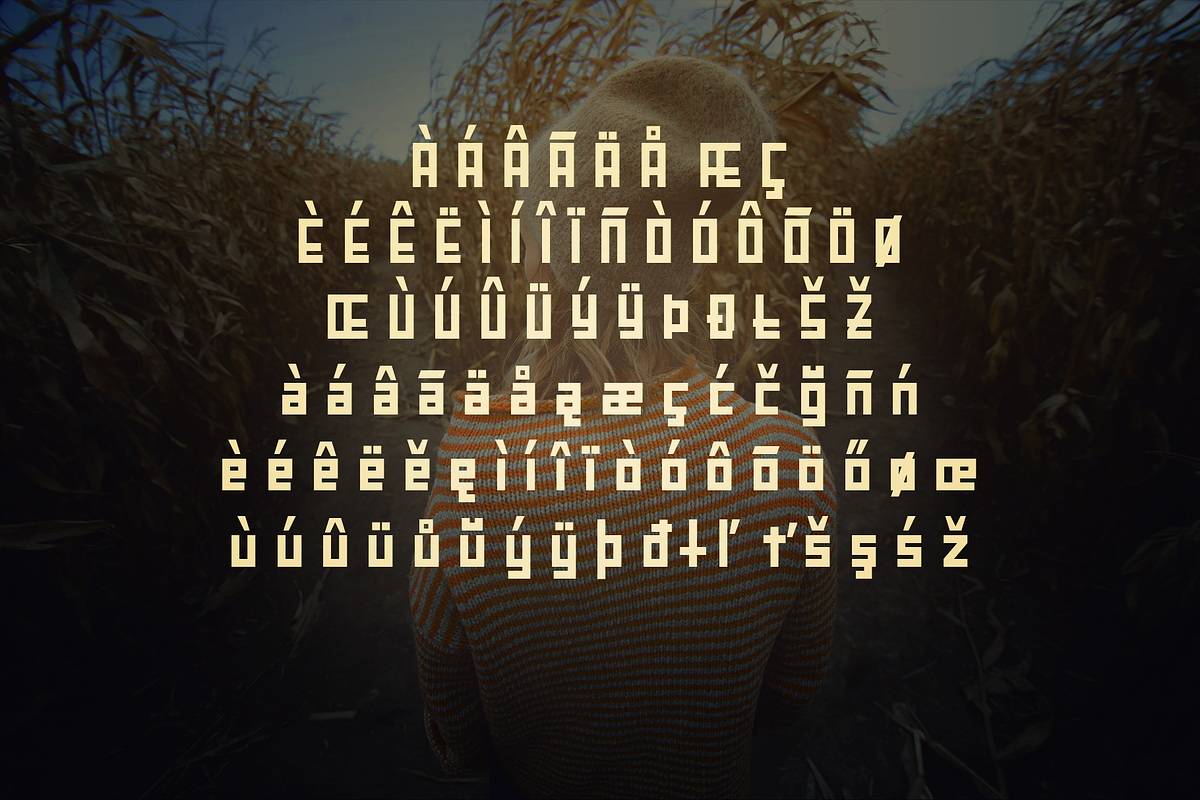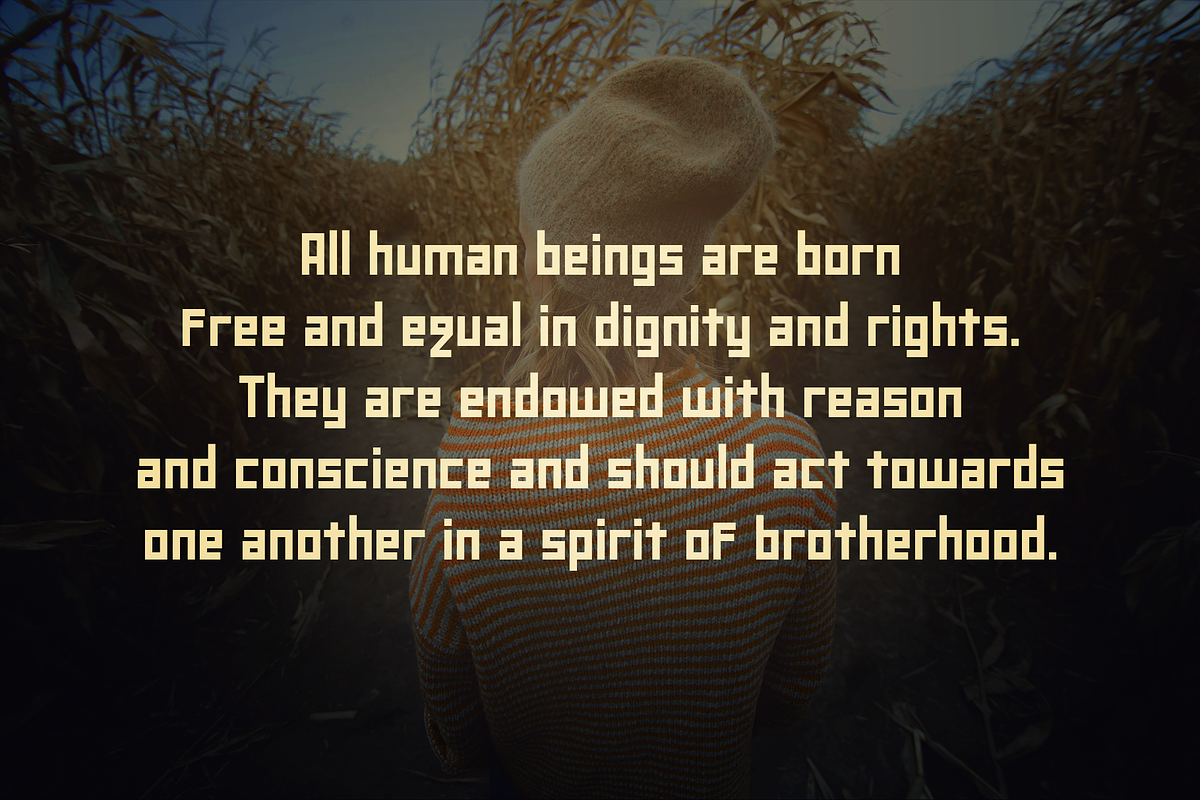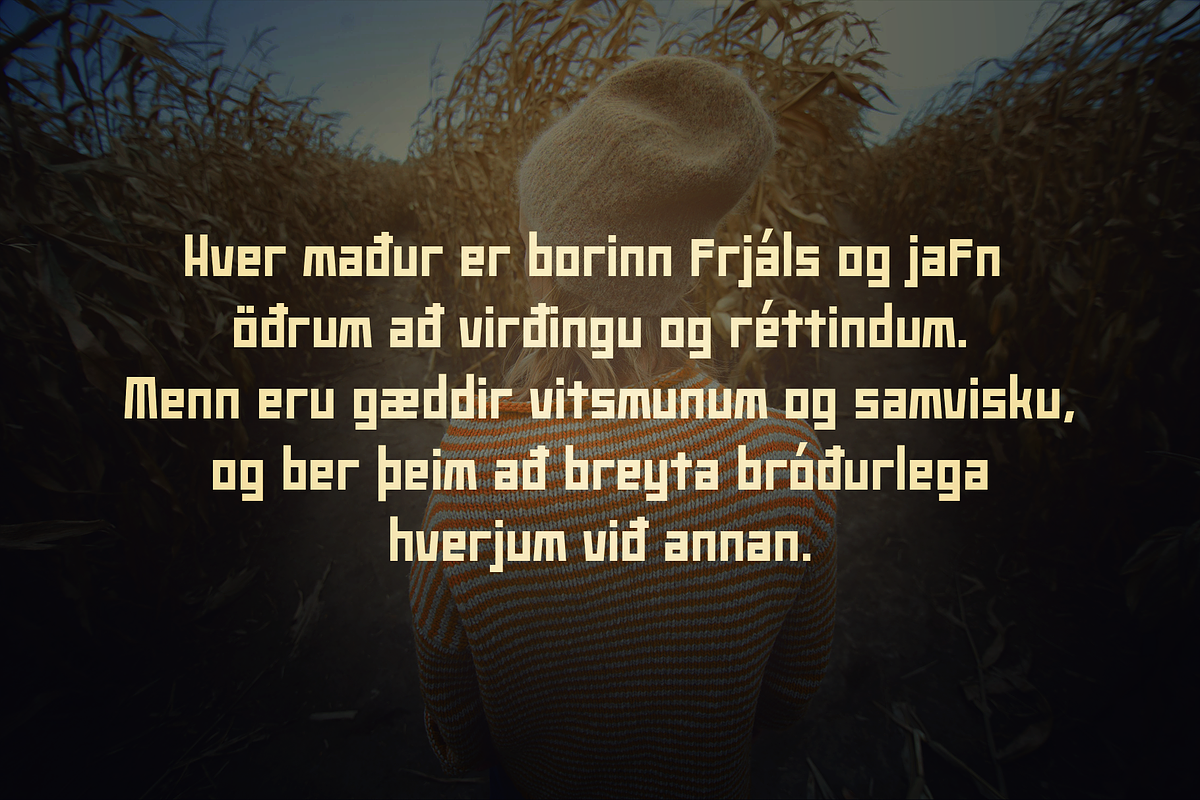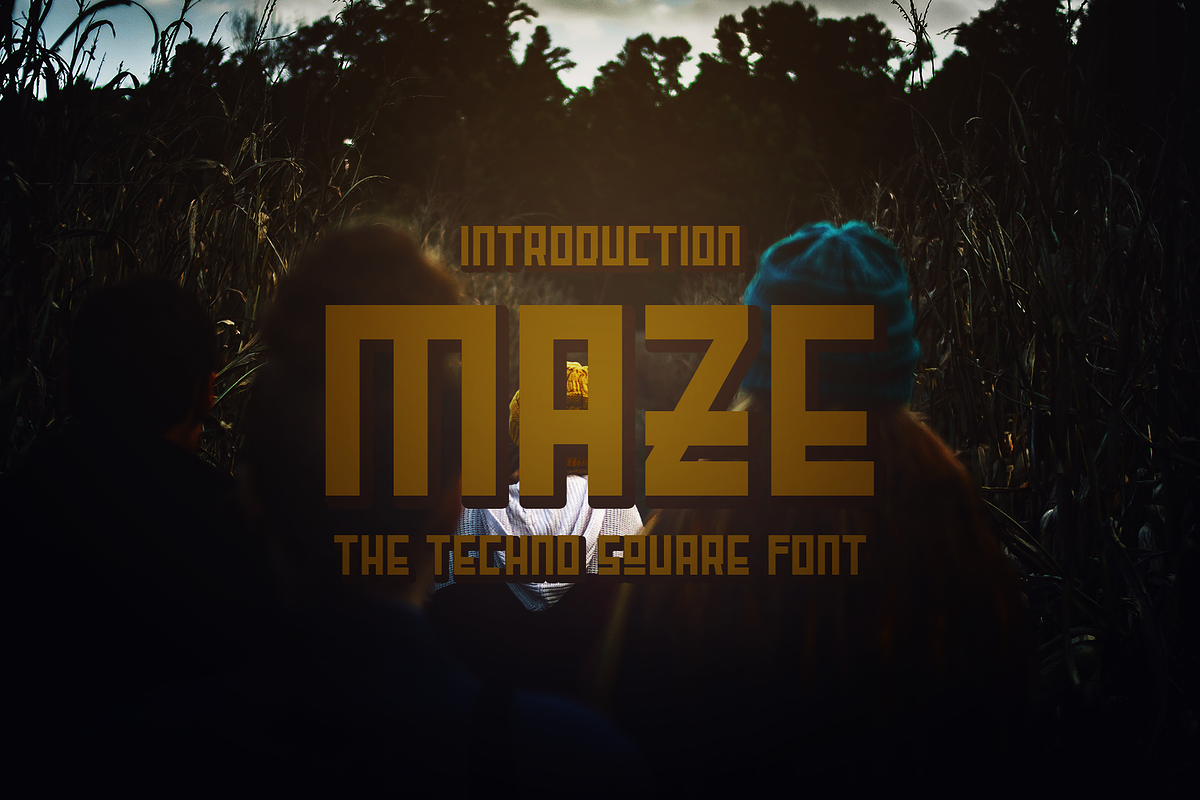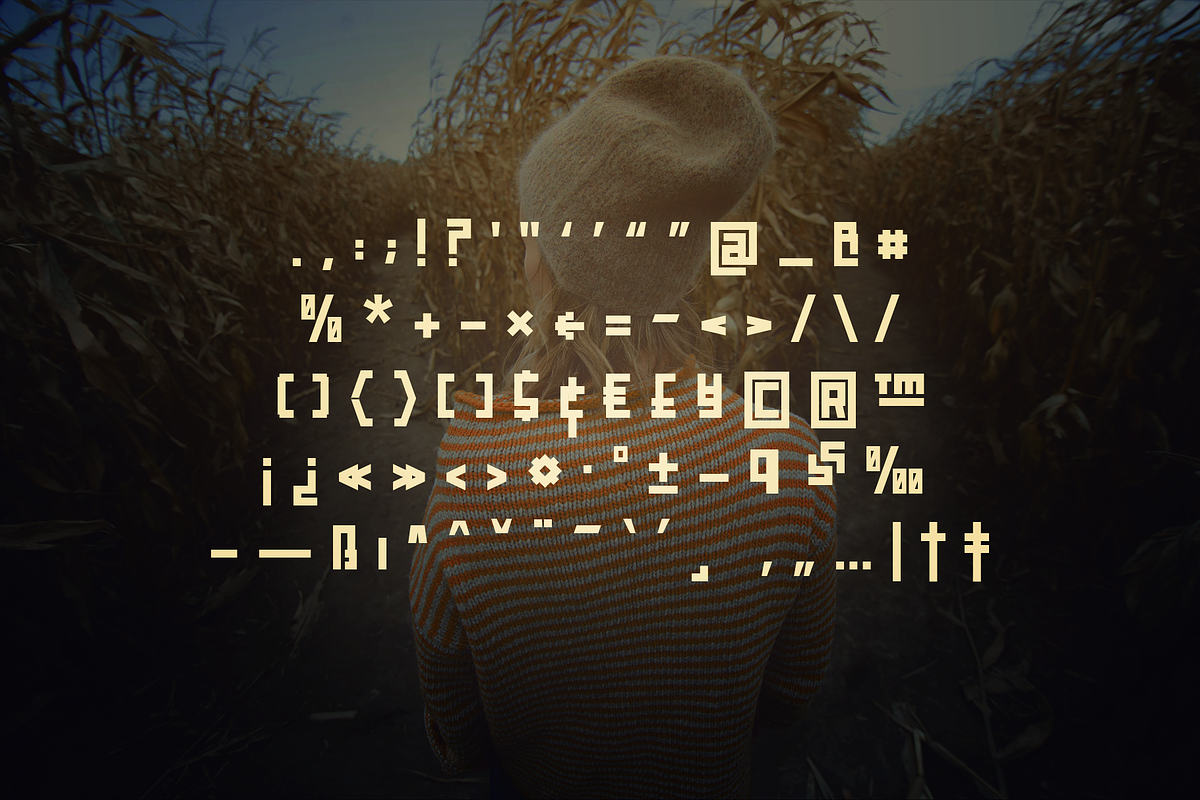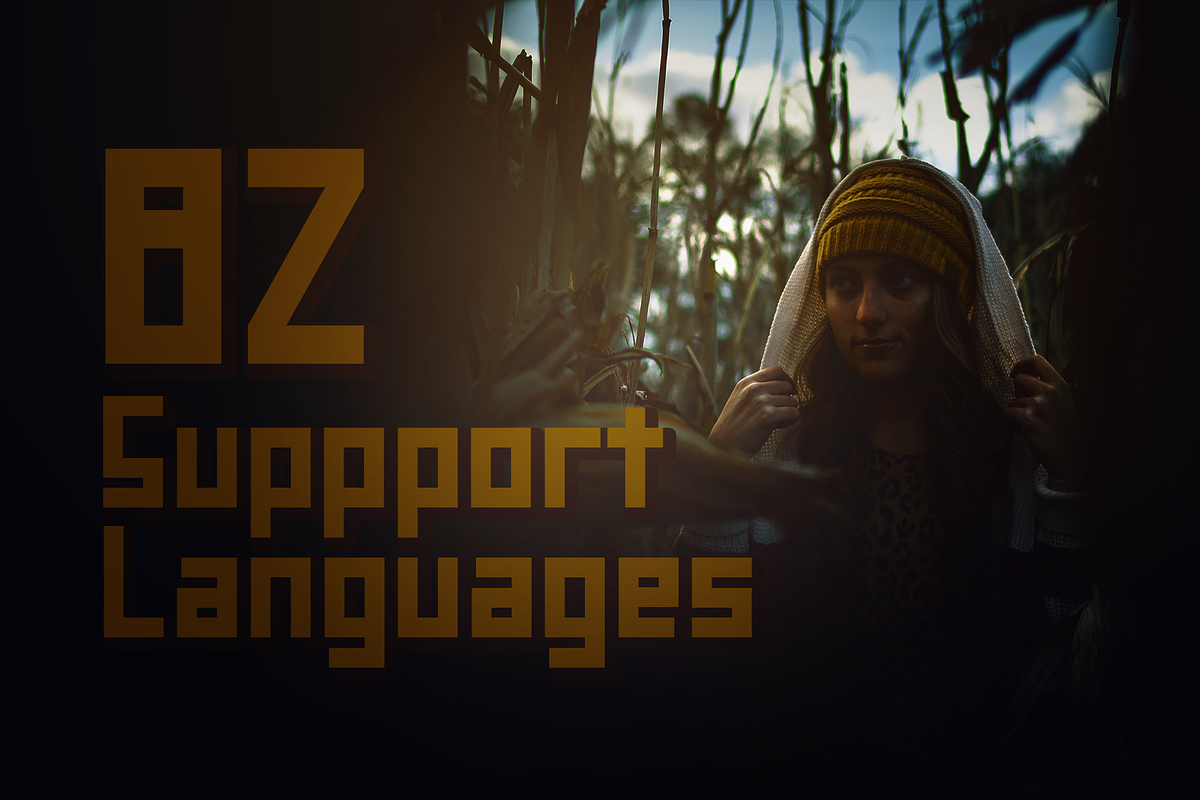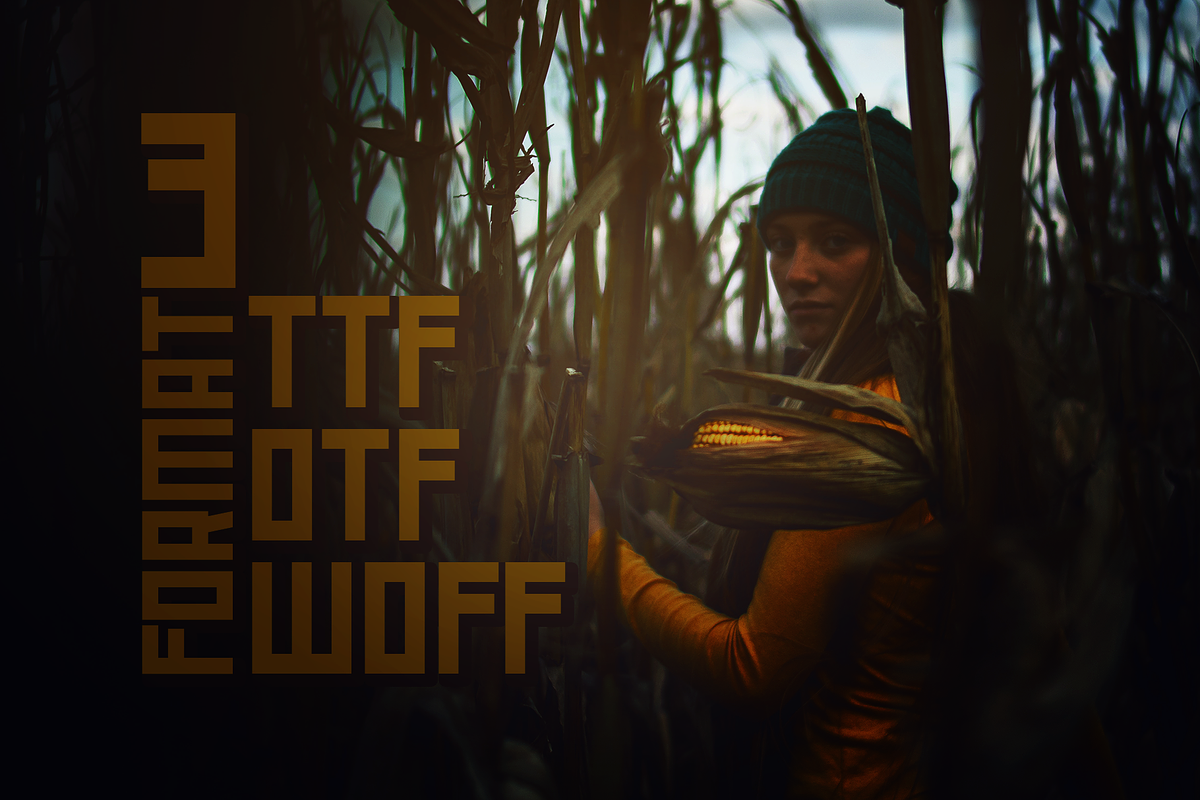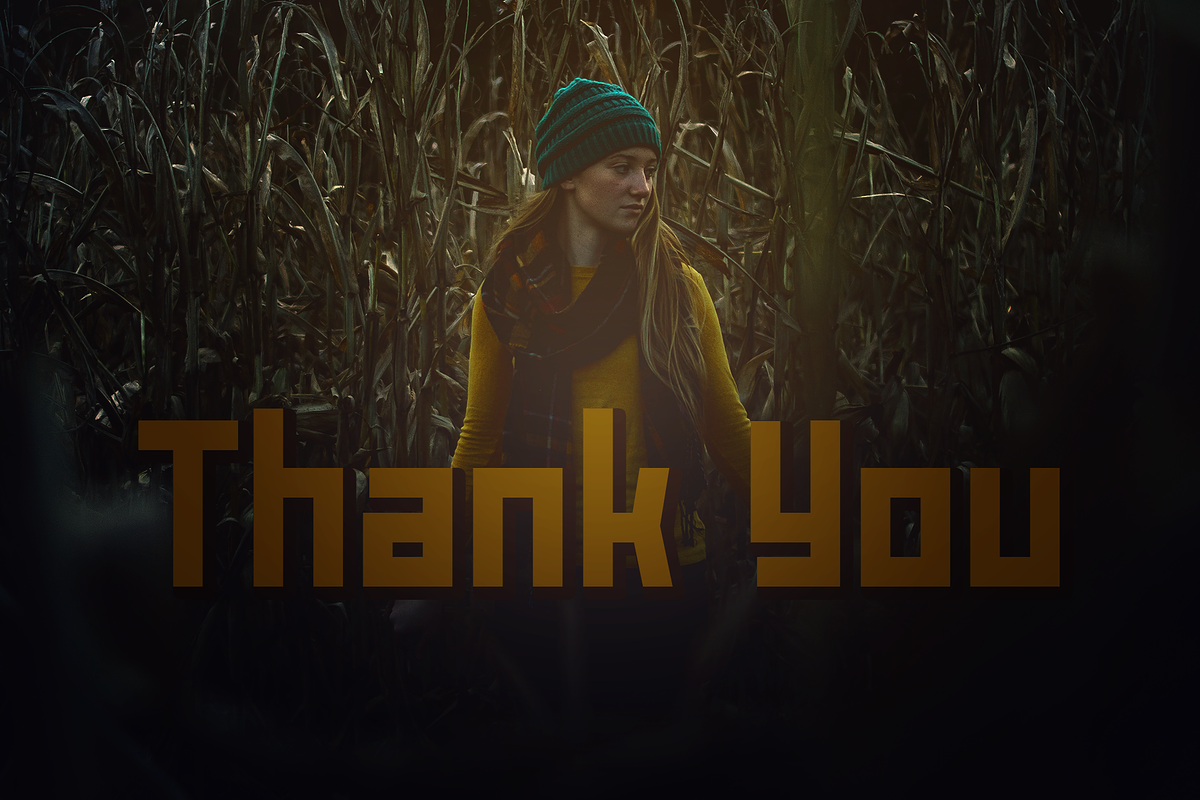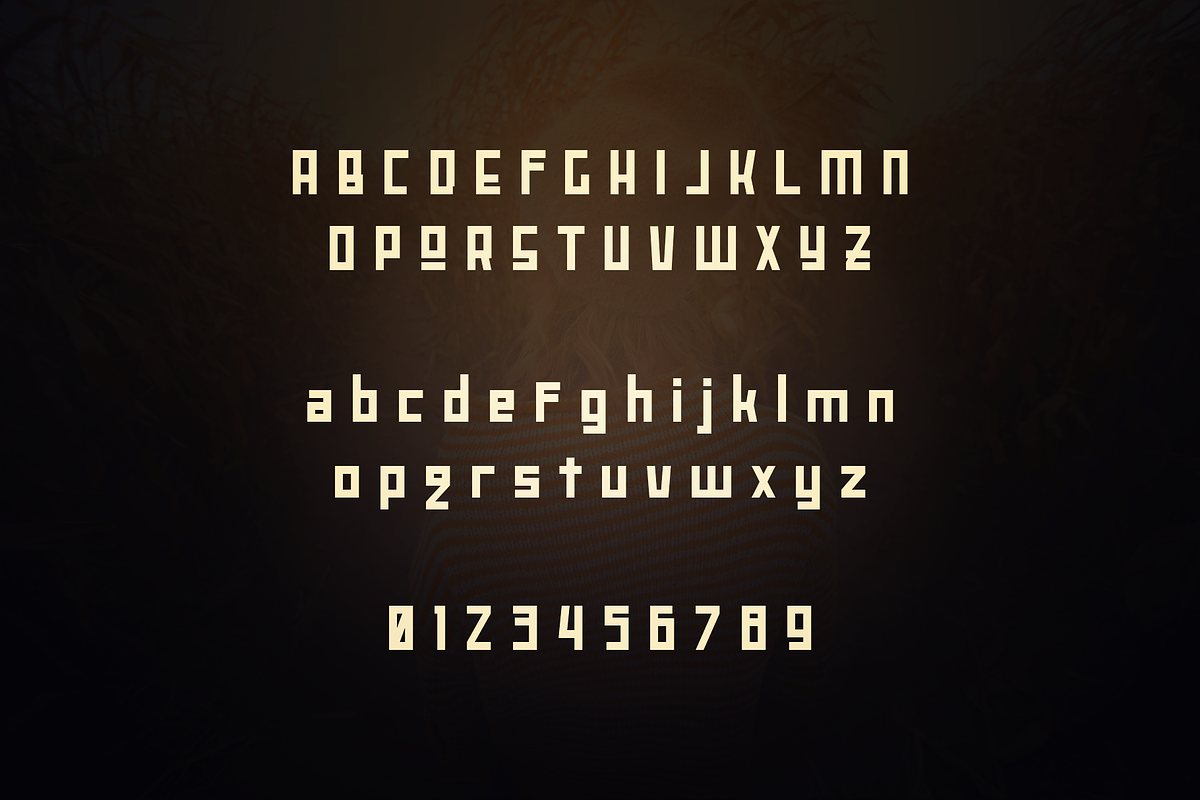
Maze The Techno Square Font
Maze The Techno Square Fonts are created for fulfilling the need for heavy or thick letters. Very suitable when applied in several media such as book covers, magazine covers, newspapers, ad banners, coffee shops, menu listings, website pages, your trademark, maybe used as a logo.
Supports 82 different languages such as Spanish, English, Portuguese, German, French, Turkish, Italian, Polish, Kurdish (Latin), Azerbaijani (Latin), Romanian, Dutch, Hungarian, Czech, Serbian (Latin), Kazakh (Latin), Swedish, Belarusian (Latin), Croatian, Slovak, Finnish, Danish, Lithuanian, Latvian, Slovenian, Irish, Estonian, Basque, Luxembourgian, and Icelandic in Latin and other scripts. (Please note that not all languages are available for all formats.)